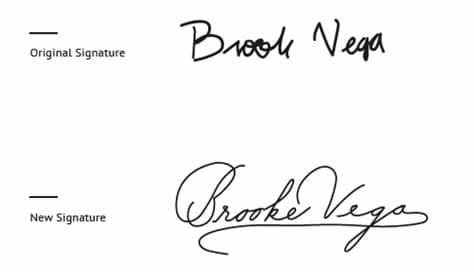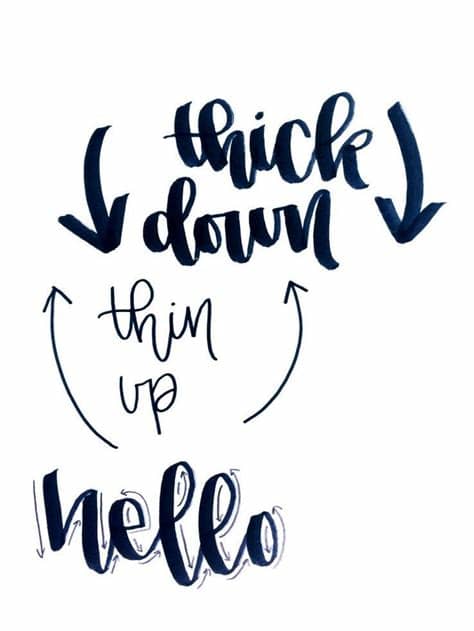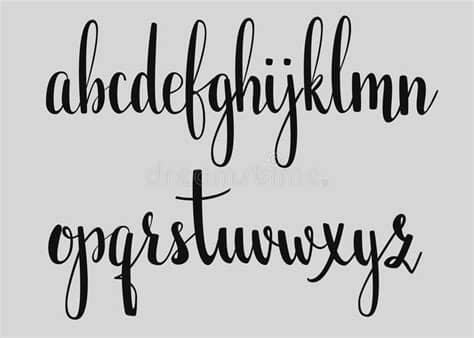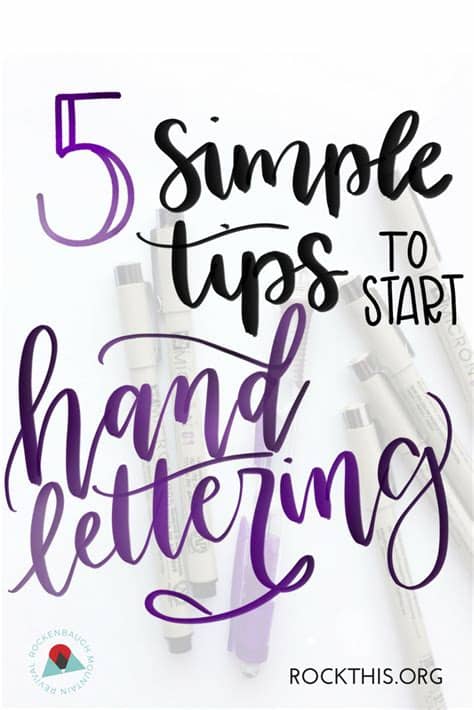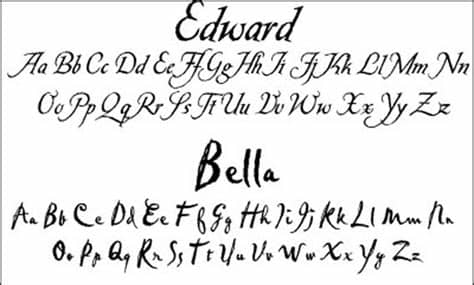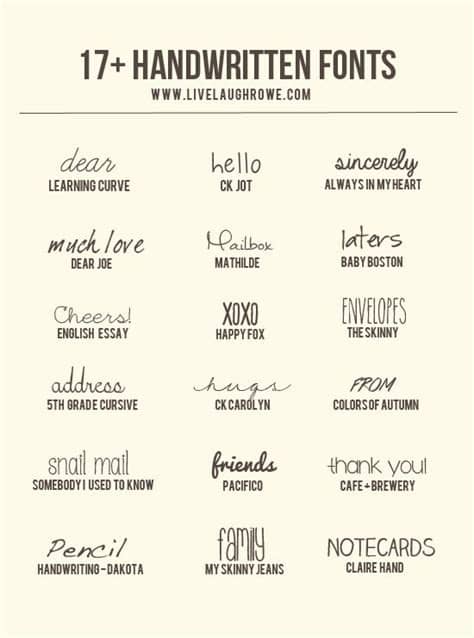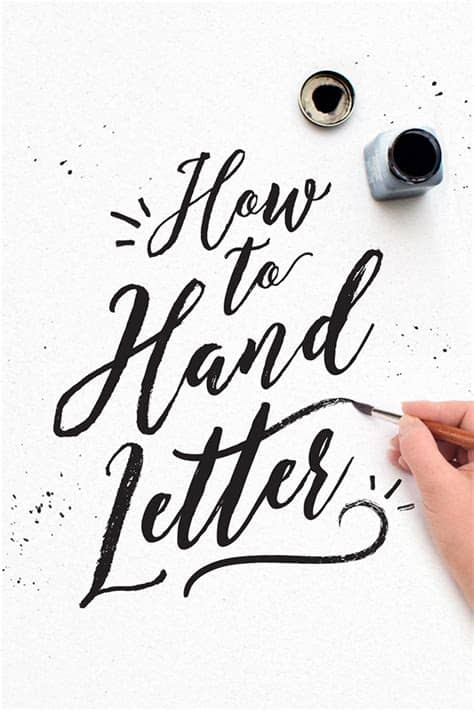
Cool Handwriting Fonts To Learn / Dolch Words - VIC Modern Cursive Font | Dolch words ... : Handwriting fonts bring a new artistry to fonts, as they are actually based on people's individual handwriting.. Download and install free handwritten fonts of the best quality from free fonts and use on your own personal and business related design purposes. This means that balance and symmetry may not at all have below are 20 cool handwritten fonts that you can use for your designs. #handwritten #cartoon #cursive #eroded #decorative #handwriting #elegant #halloween #logo #hand drawn #retro #techno #italic #various #invitation. You can use these fonts to create custom styles. This handwriting font is available in two styles:
This means that balance and symmetry may not at all have below are 20 cool handwritten fonts that you can use for your designs.
The best selection of handwriting fonts for windows and macintosh. They create fonts from your handwriting for free and distribute these freely on the above site. You can use these fonts to create custom styles. Cute fonts pretty fonts beautiful fonts cool writing fonts free handwriting calligraphy fonts calligraphy alphabet islamic calligraphy caligraphy. Writing fonts include both printing and cursive styles and is less artistic than formal calligraphy.
If you are quite lazy to learn calligraphy yourself, but you do. If you want to make a personal blog or website stand out from all the rest, you can incorporate a fun handwriting font into the headers: Download free handwritten fonts for commercial and personal use. Hand drawn circles & lines. Learn how your comment data is processed. Includes 4 separate font files: This handwriting font is available in two styles: Learn to to find a default handwritten font and how to format it so it looks more like handwriting.
Atakana handwriting font script by afkari studio kanatype.com.
Total in section 693 of the fonts available to free download. Includes 4 separate font files: Leave a reply cancel reply. If you are quite lazy to learn calligraphy yourself, but you do. Learn how your comment data is processed. Learning curve 4.0 mimics traditional cursive handwriting worksheets but with a bit of a modern style. These teacher fonts help students learn both print and cursive writing. In the age of social media and smartphones, probably, there are people, who have never the first step here is to choose cool fonts to draw. Here are 50 free handwriting fonts you can incorporate into your designs to give them a unique, handwritten feel (without the time and hassle every one of the free handwriting fonts on this list is available for download at zero cost to you—so if you want to lend a unique, handwritten feel to your. Download these free handwriting fonts, including free cursive fonts. Handwriting fonts are written with a pen, pencil, or marker. Fonts of this category «handwritten fonts». But that's not all they are great for, no matter what type of site you are building, they can be used to lighten the mood on particular section such as graphics, banners etc.